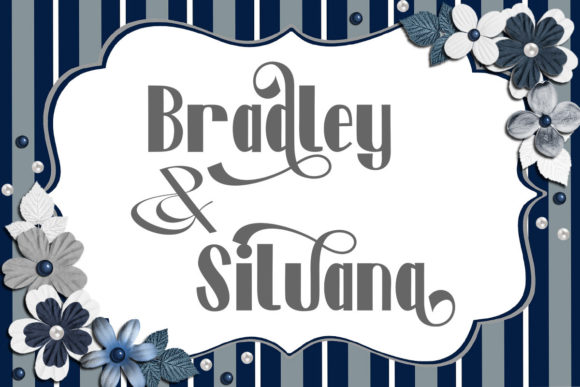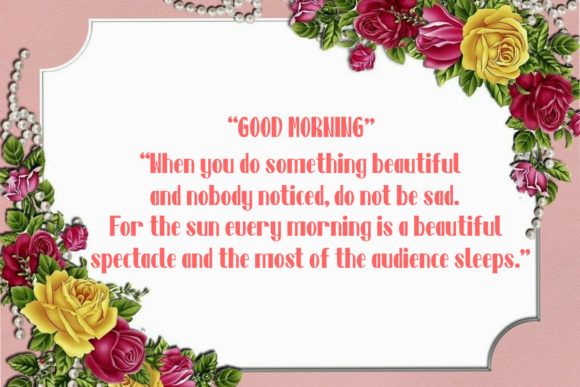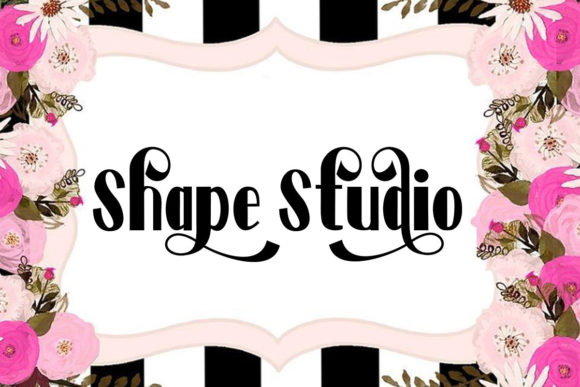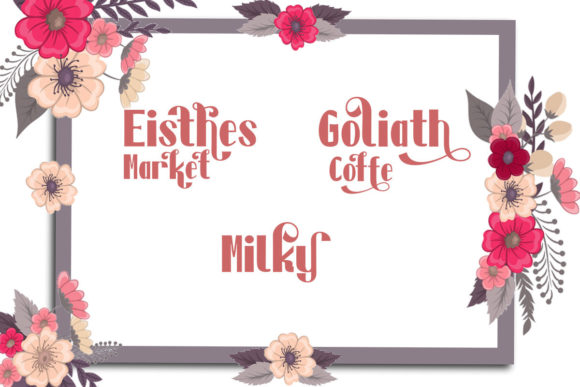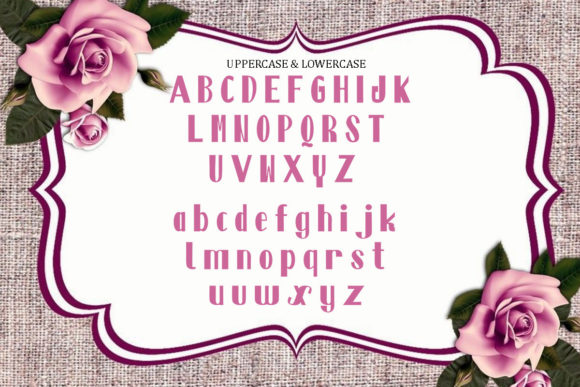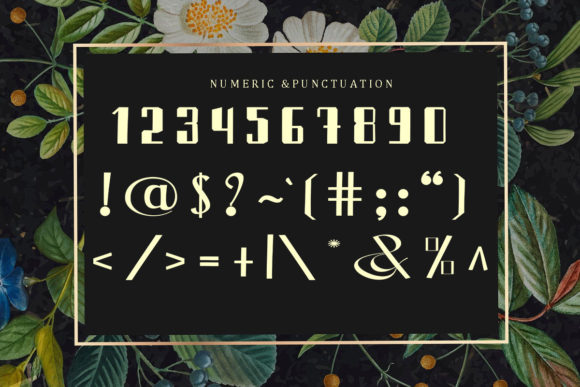
Austin Font: Elevate Your Designs with a Trendy, Bold, and Stylish Display Font
Are you tired of using the same old fonts in your designs? Look no further than the Austin Font, a trendy, bold, and stylish display font that’s sure to take your creations to the next level. With its unique blend of modern style and classic charm, this font is perfect for designers and crafters looking to add a touch of sophistication to their work.
What Makes Austin Font So Special?
Austin Font is more than just a pretty face – it’s also incredibly versatile and easy to use. This PUA encoded font allows you to access all glyphs and swashes with ease, giving you the flexibility to experiment with different styles and effects. Whether you’re designing a logo, creating a social media graphic, or crafting a beautiful wedding invitation, Austin Font is the perfect choice.
Key Features of Austin Font
- Trendy and Modern Design: Austin Font boasts a fresh and contemporary design that’s sure to turn heads.
- Bold and Stylish: With its bold lines and stylish curves, this font is perfect for making a statement.
- PUA Encoded: Easily access all glyphs and swashes to add a personal touch to your designs.
- Highly Versatile: Use Austin Font for a wide range of design projects, from logos and graphics to invitations and more.
Inspiration for Your Designs
Still not sure how to use Austin Font in your designs? Here are a few ideas to get you started:
- Wedding Invitations: Use Austin Font to create beautiful, stylish wedding invitations that set the tone for a memorable day.
- Logos and Branding: Add a touch of sophistication to your logo and branding with Austin Font’s bold, modern design.
- Social Media Graphics: Use Austin Font to create eye-catching social media graphics that grab attention and drive engagement.
- Packaging Design: Add a personal touch to your packaging design with Austin Font’s stylish and versatile design.
Tips and Tricks for Getting the Most Out of Austin Font
Here are a few tips and tricks to help you get the most out of Austin Font:
- Experiment with Different Sizes: Don’t be afraid to experiment with different font sizes to create visual interest and hierarchy in your designs.
- Play with Swashes and Glyphs: Use Austin Font’s PUA encoded features to add a personal touch to your designs and make them stand out.
- Pair with Other Fonts: Try pairing Austin Font with other fonts to create a unique and stylish contrast.
In conclusion, Austin Font is a trendy, bold, and stylish display font that’s perfect for designers and crafters looking to elevate their designs. With its unique blend of modern style and classic charm, this font is sure to add a touch of sophistication to any project. So why wait? Download Austin Font today and see the amazing things you can create!